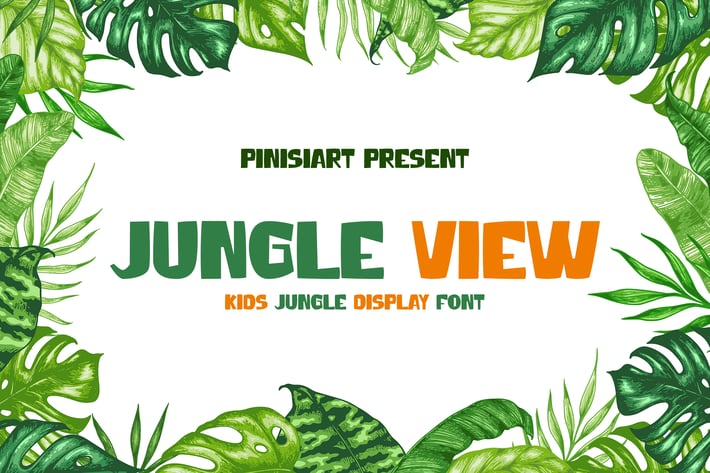
Jungle View - Kids Display Font
Wilderness is sometimes scary, but not with Jungle View. It will only bring happiness toeards you.
Suit perfectly for kids themes books market, online games, stationary, school supplies font, poster, birthday invitation, youtube covers, youtube thumbnails, social media page covers and so on...